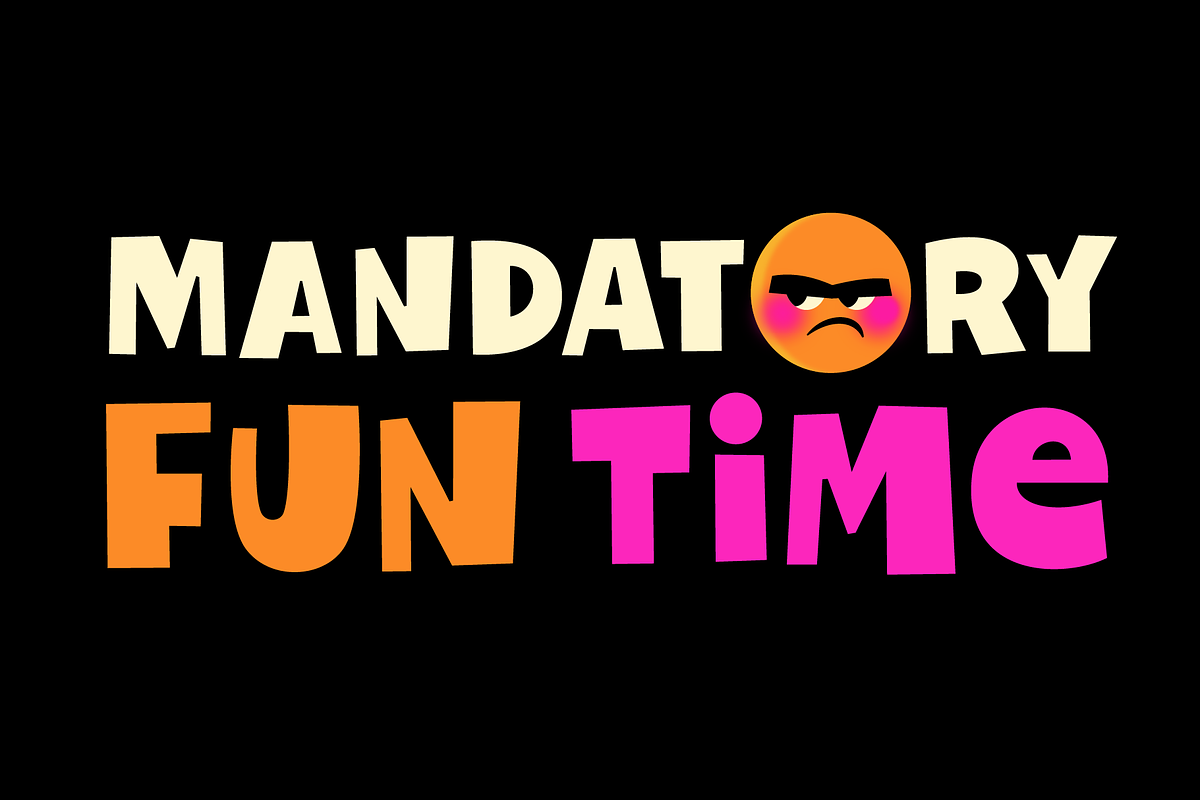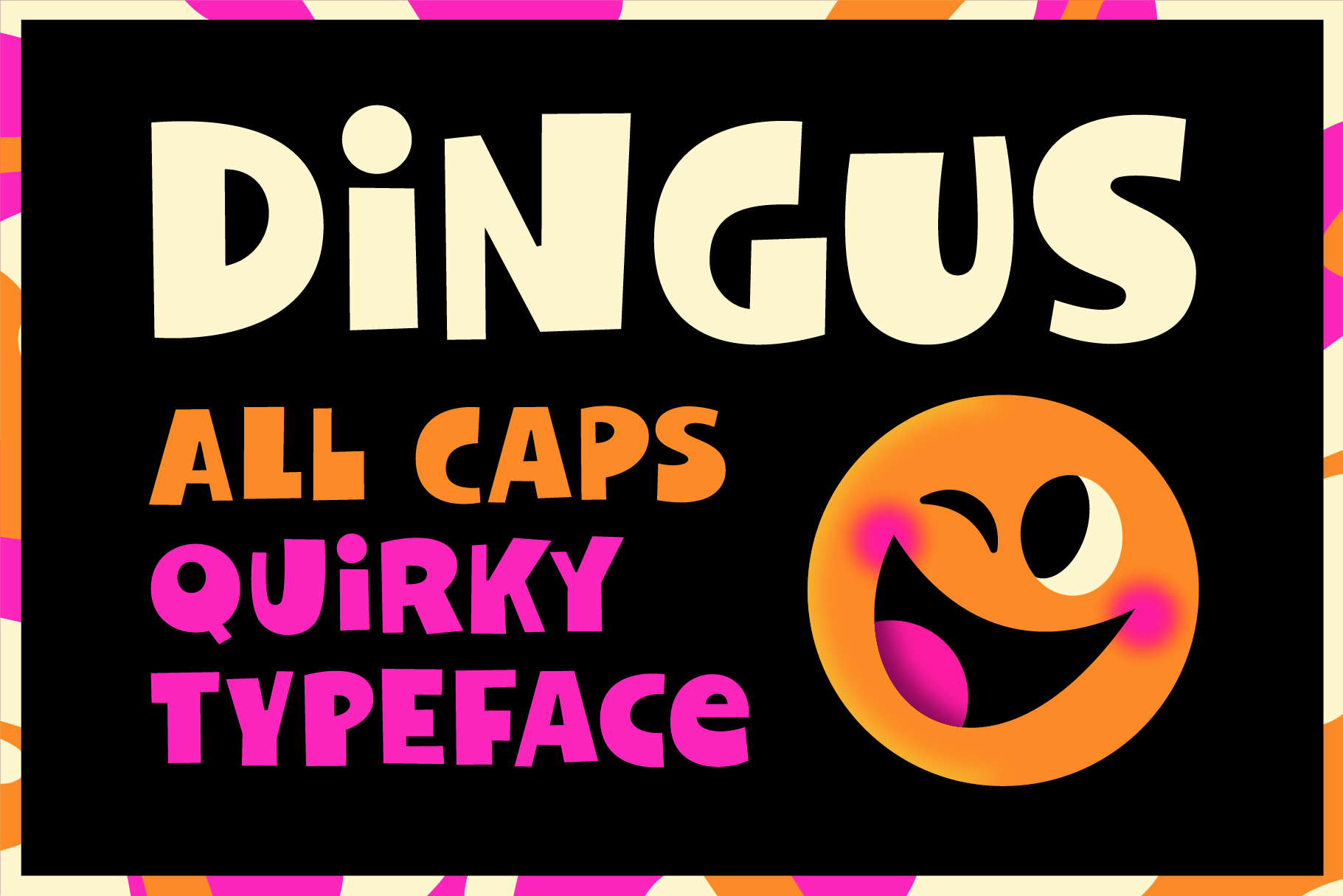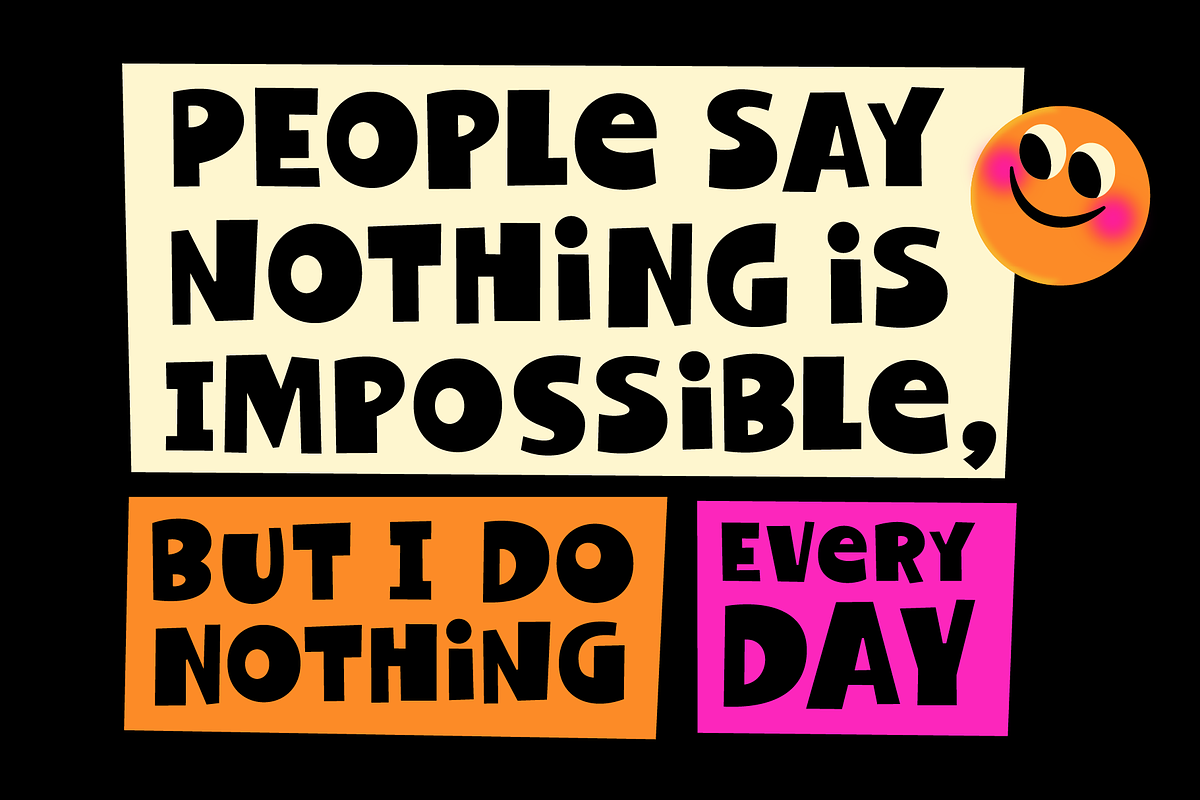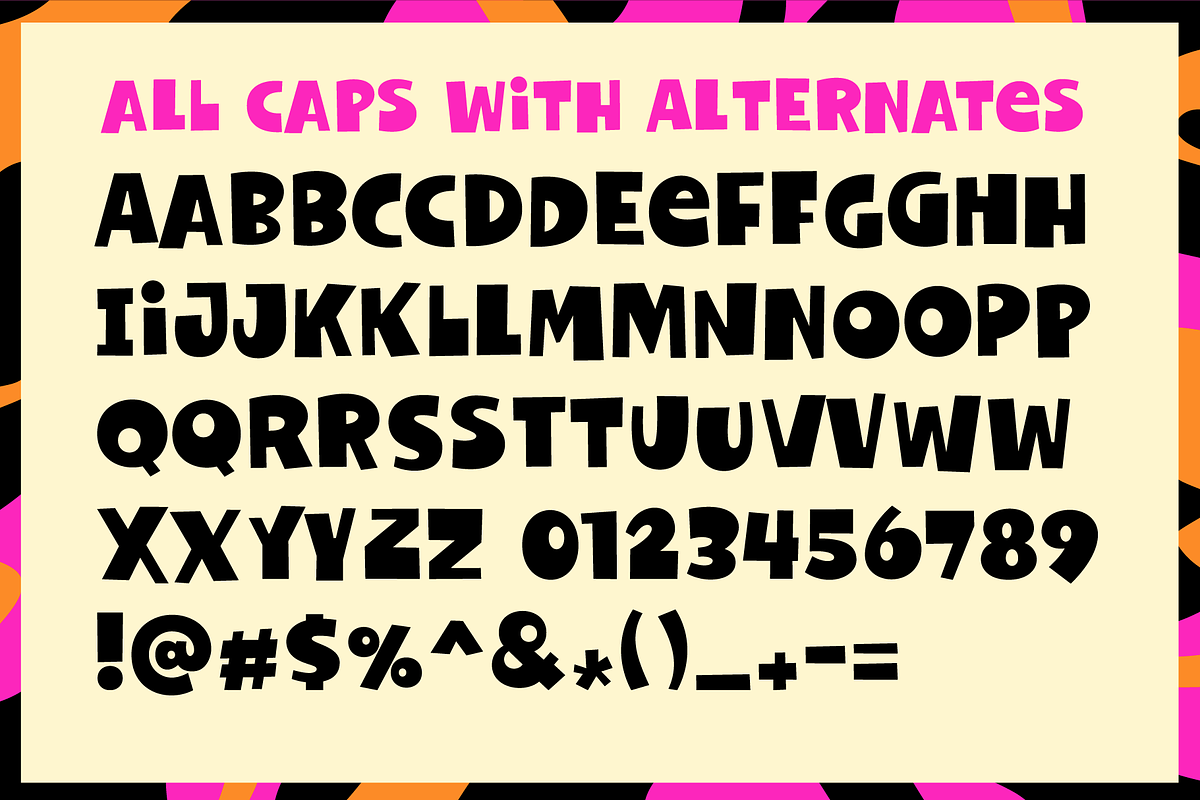
Dingus - Quirky Display Font
Dingus is a fun, quirky all-caps font. The lowercase (a-z) letters are all alternate versions of the uppercase (A-Z) letters so you can mix and match for just the right typesetting. This is a limited glyph set, with just standard English characters as seen in the preview image.